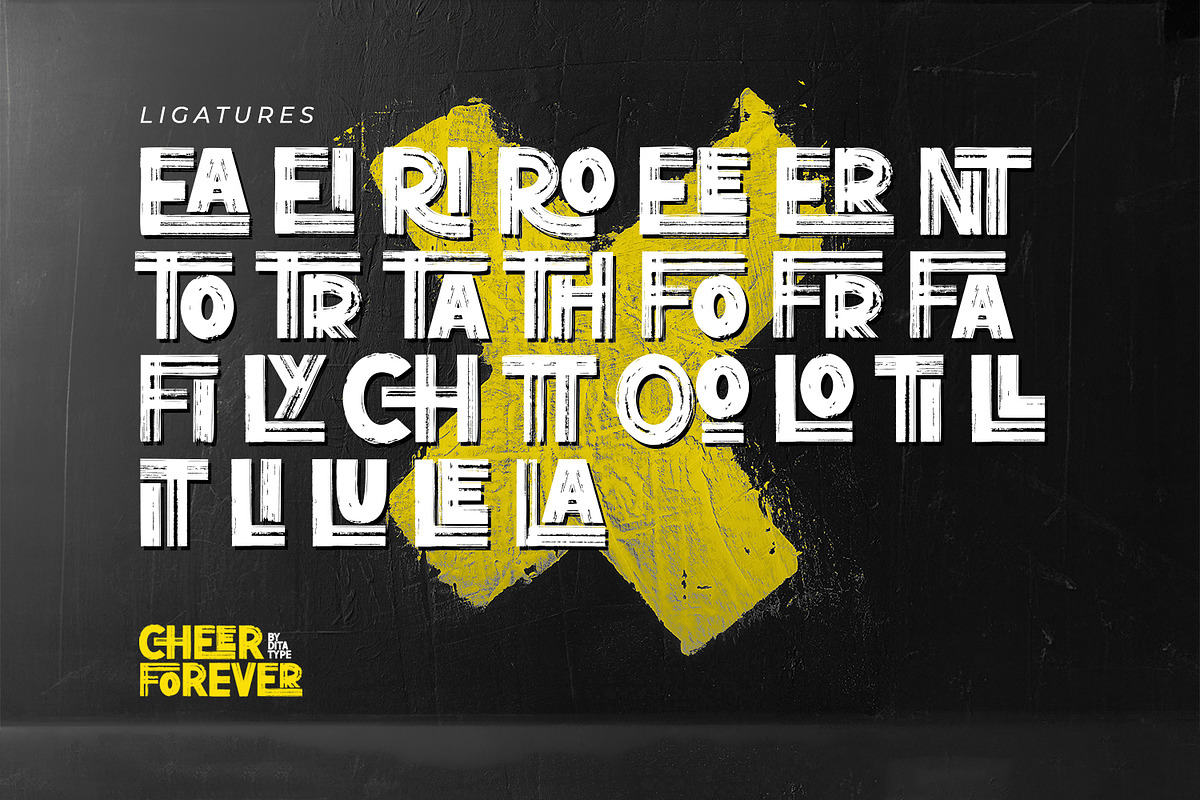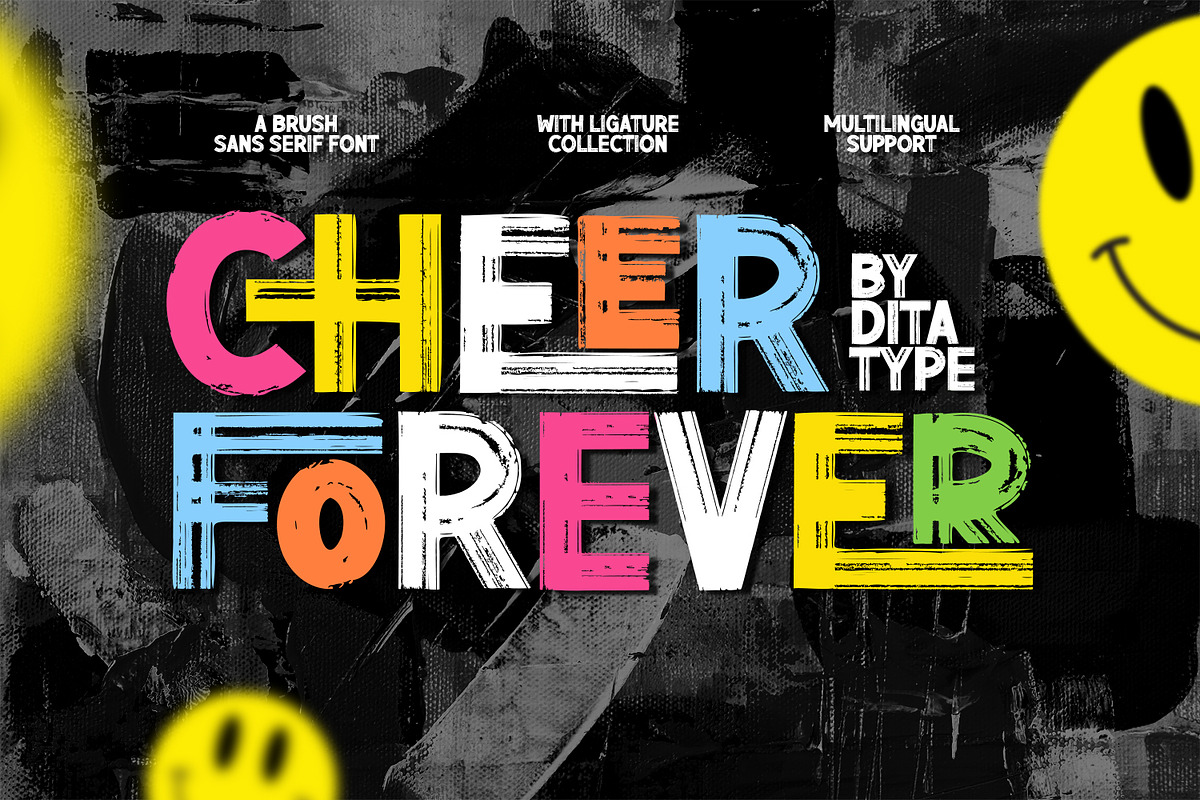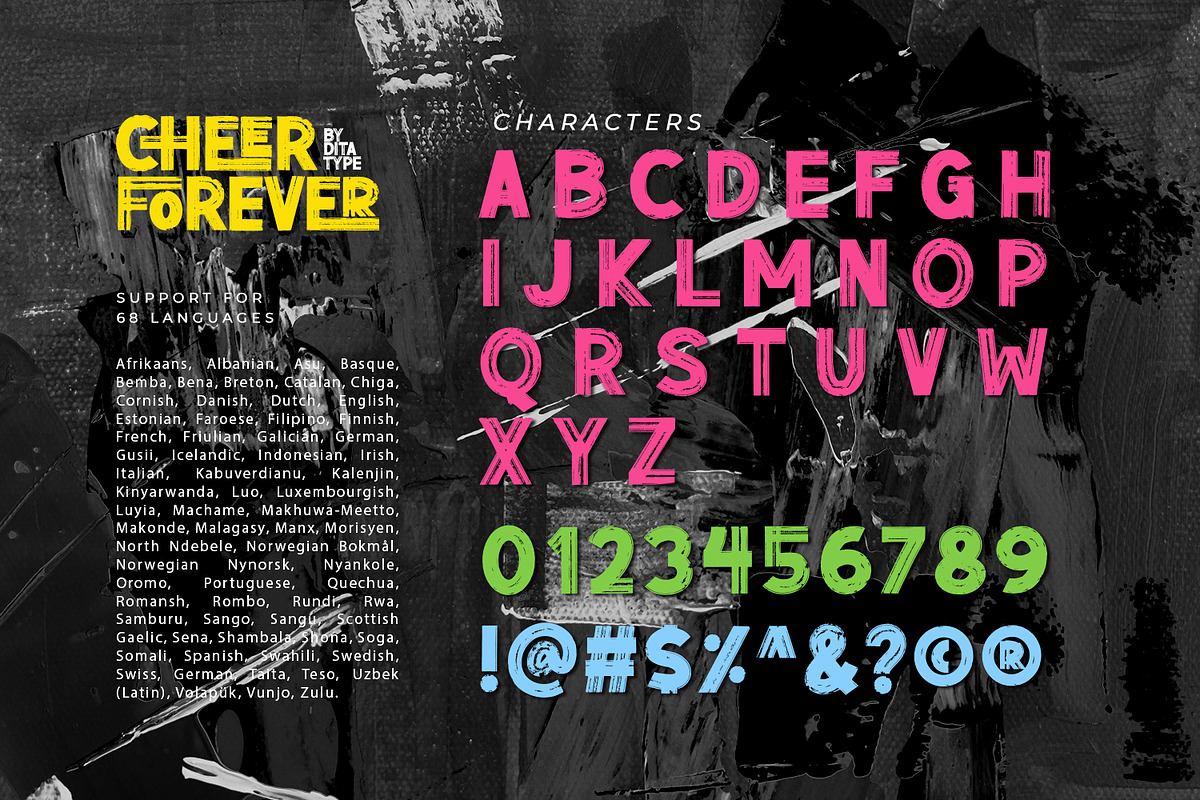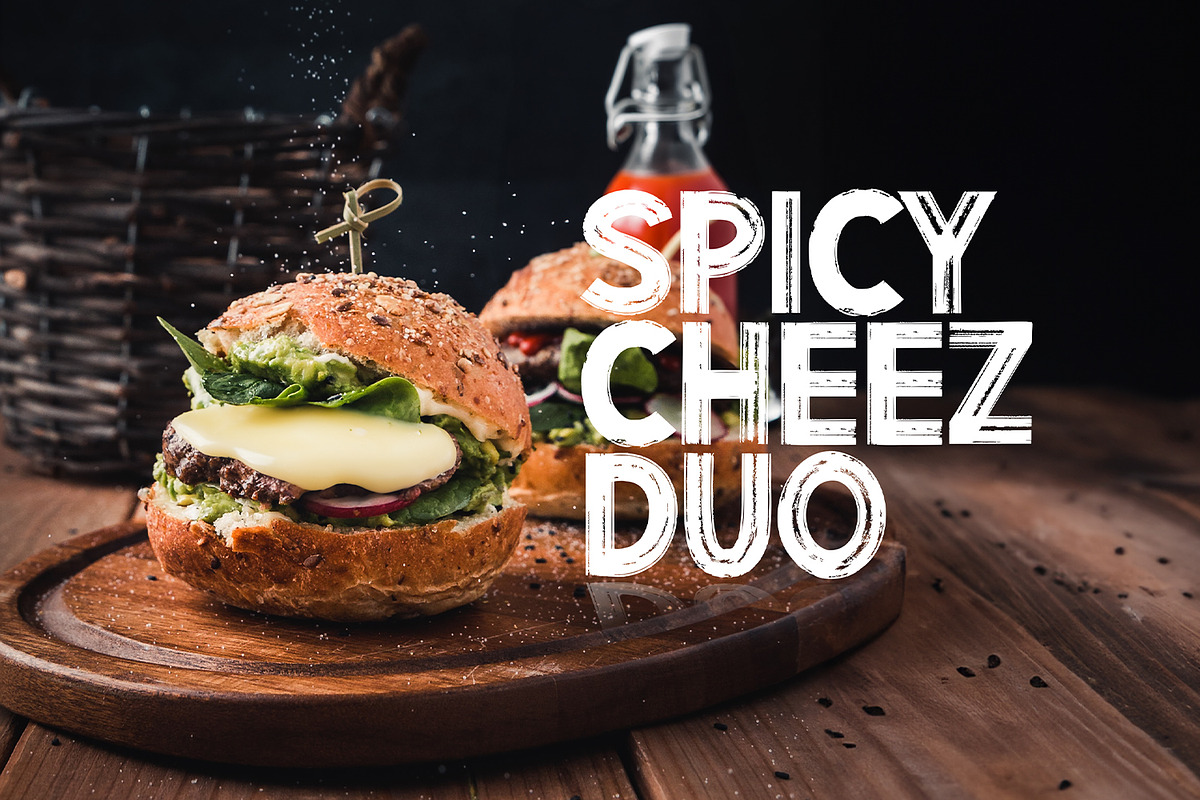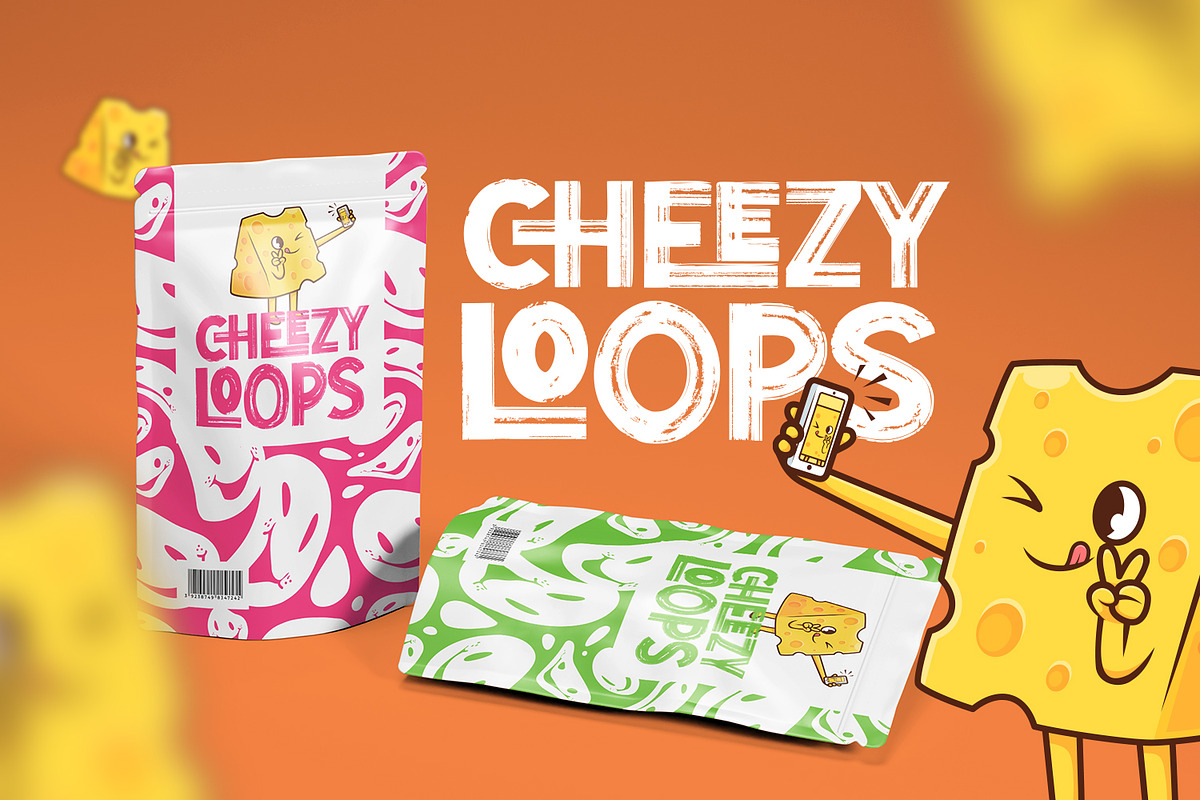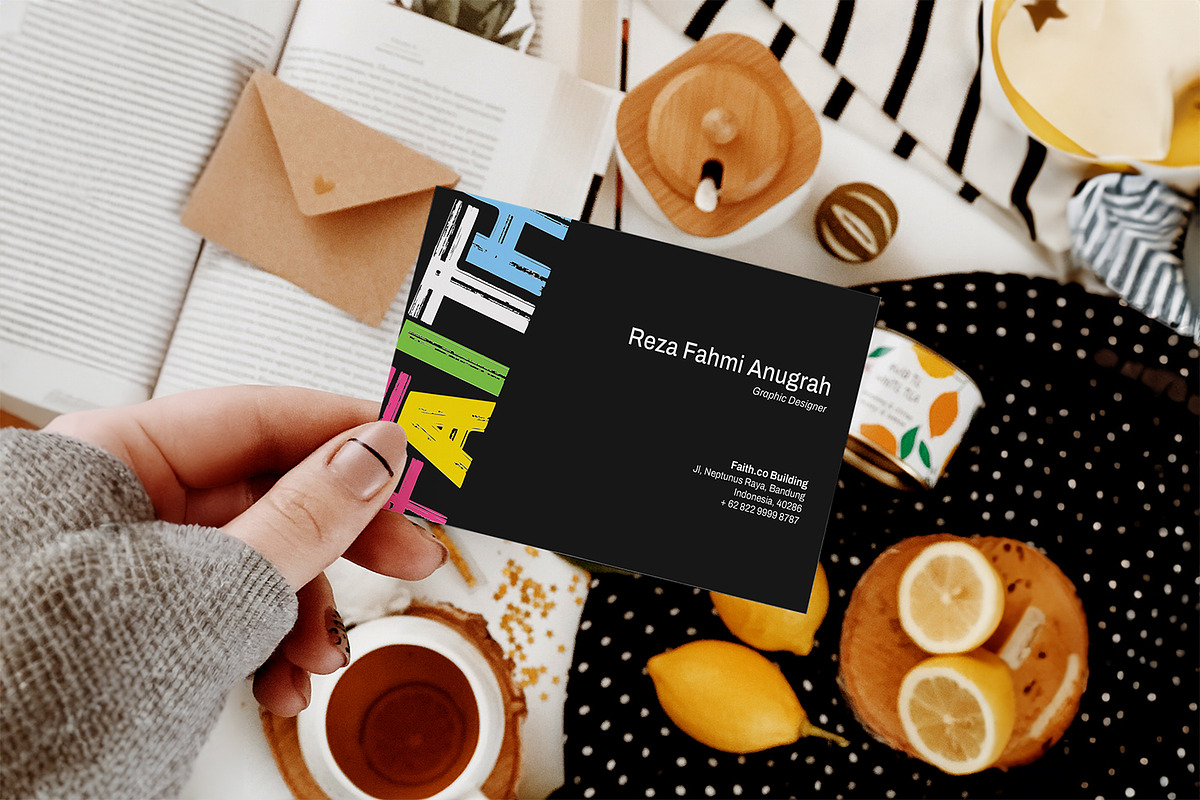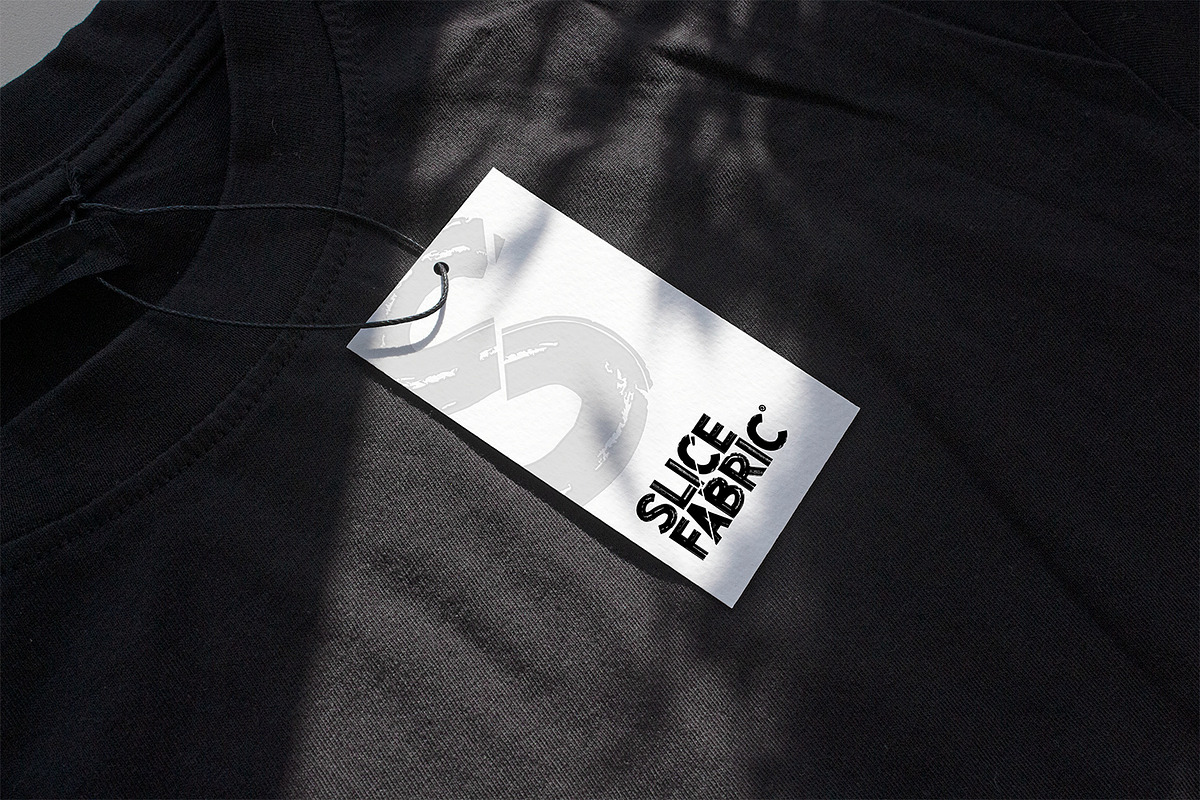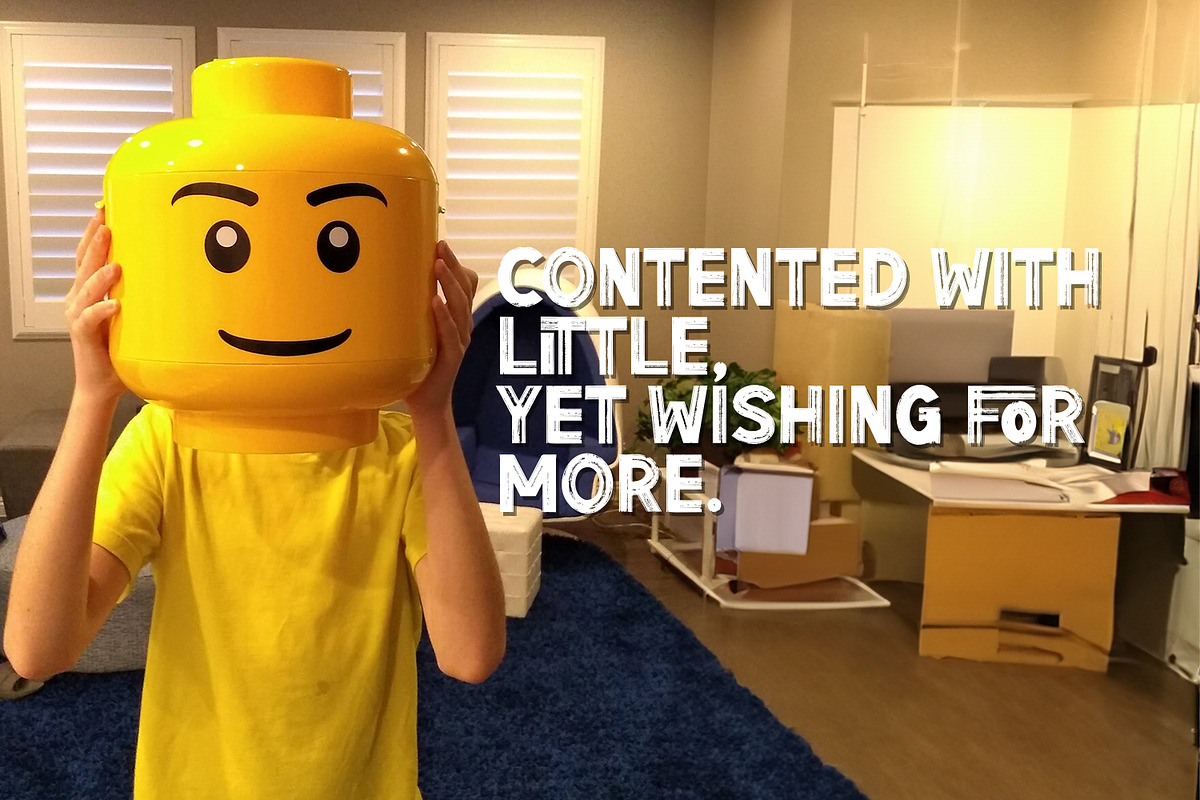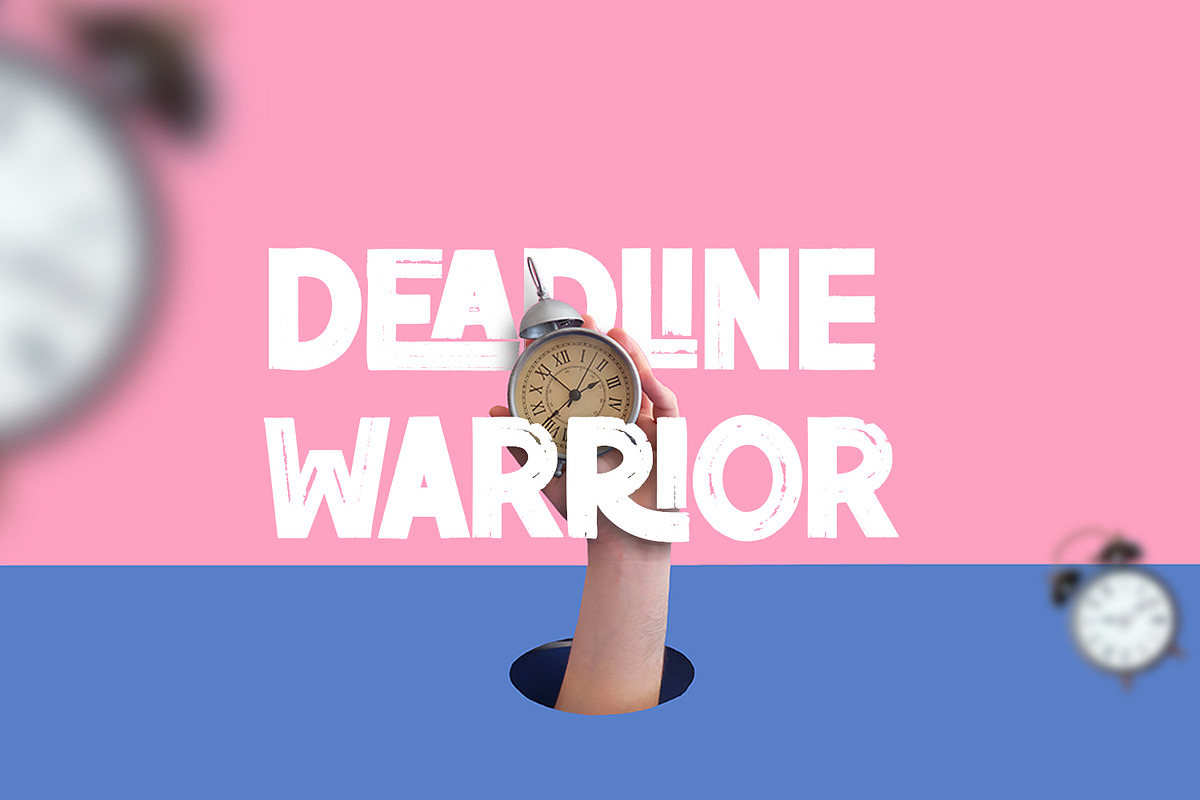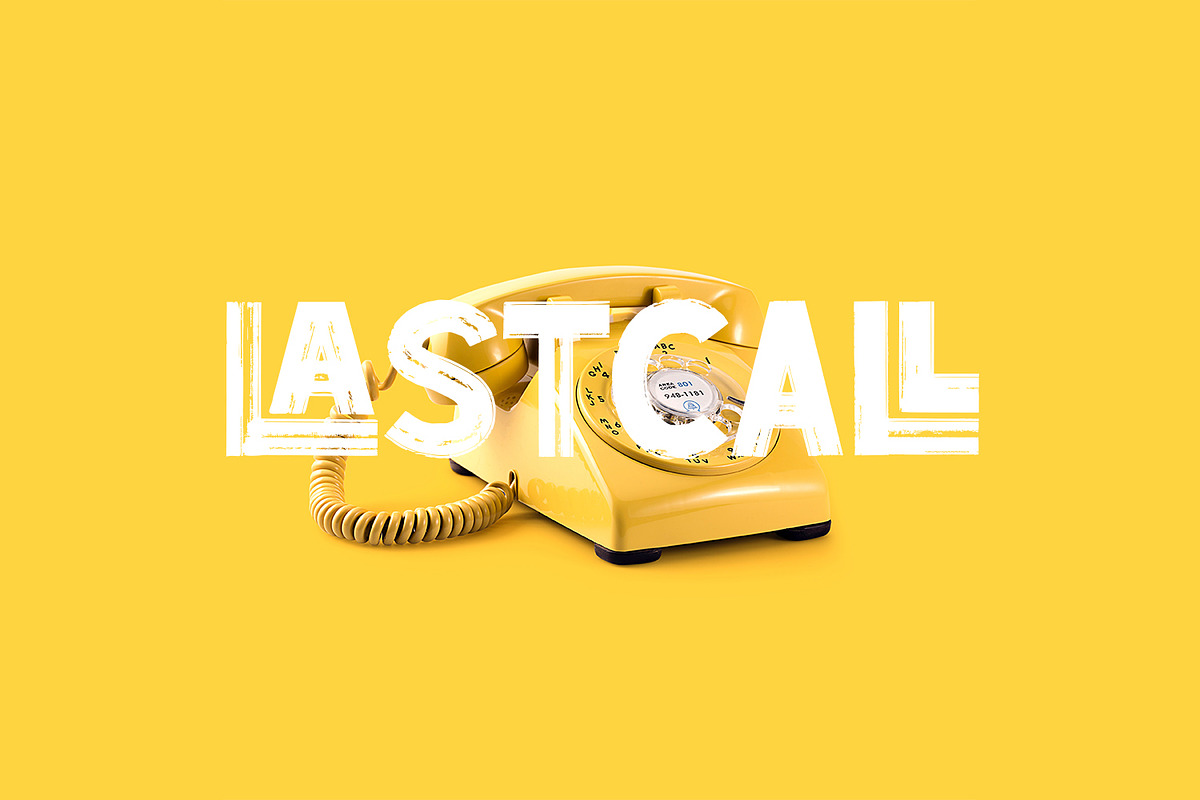
Cheer Forever
Cheer Forever is a delightful display font that merges the timeless simplicity of a sans serif with playful brush-style accents. With its uppercase letterforms and unique design, this typeface adds a touch of cheerfulness and character to your projects. The defining feature of Cheer Forever lies in its combination of a clean and geometric sans serif base with brush-inspired accents. The uppercase letters maintain a sleek and straightforward appearance, while the brush-style elements bring an element of spontaneity and liveliness. This fusion of styles creates a harmonious balance, resulting in a font that is both contemporary and playful. Inspired by the joyful nature of brush calligraphy, Cheer Forever captures the essence of creativity and self-expression. The brush-inspired accents add a touch of whimsy and personality to each letter, as if they were hand-drawn with a brushstroke. This unique style injects a sense of fun and positivity into your designs. Enjoy the various features available in this font.
Cheer Forever fits in logos, titles, headlines, and any design that aims to make a bold statement with a touch of playfulness. It is also particularly well-suited for designs related to children's products, event promotions, and any theme that calls for a touch of creativity. Find out more ways to use this font by taking a look at the font preview.